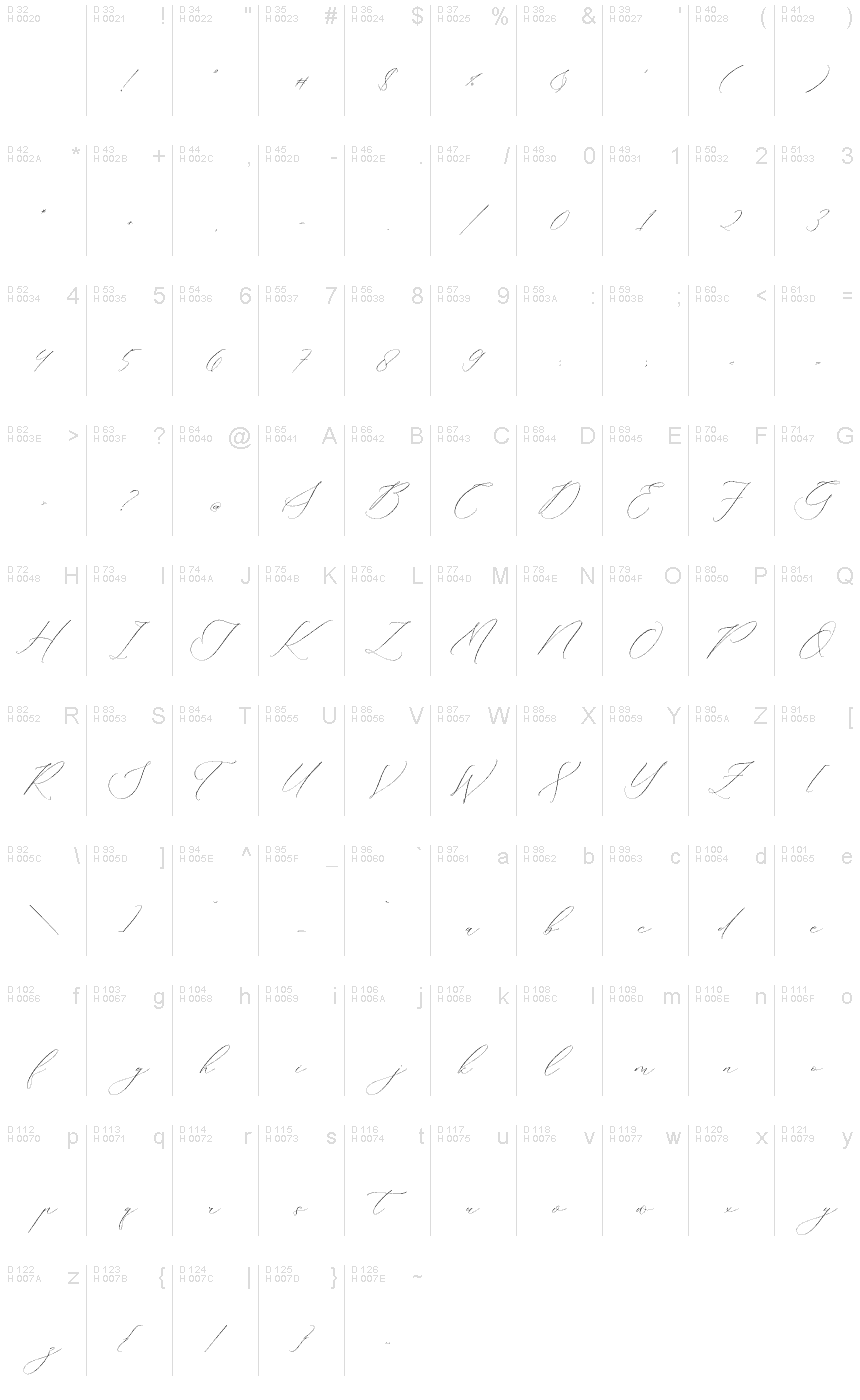
Delistian Valentine
Delistian Valentine font by Storytype Studio is a light handwritten gem that brings together elegance and expressiveness. With fluid and decorative letters, it introduces a sophisticated touch to contemporary applications that highlights the beauty of your own words.